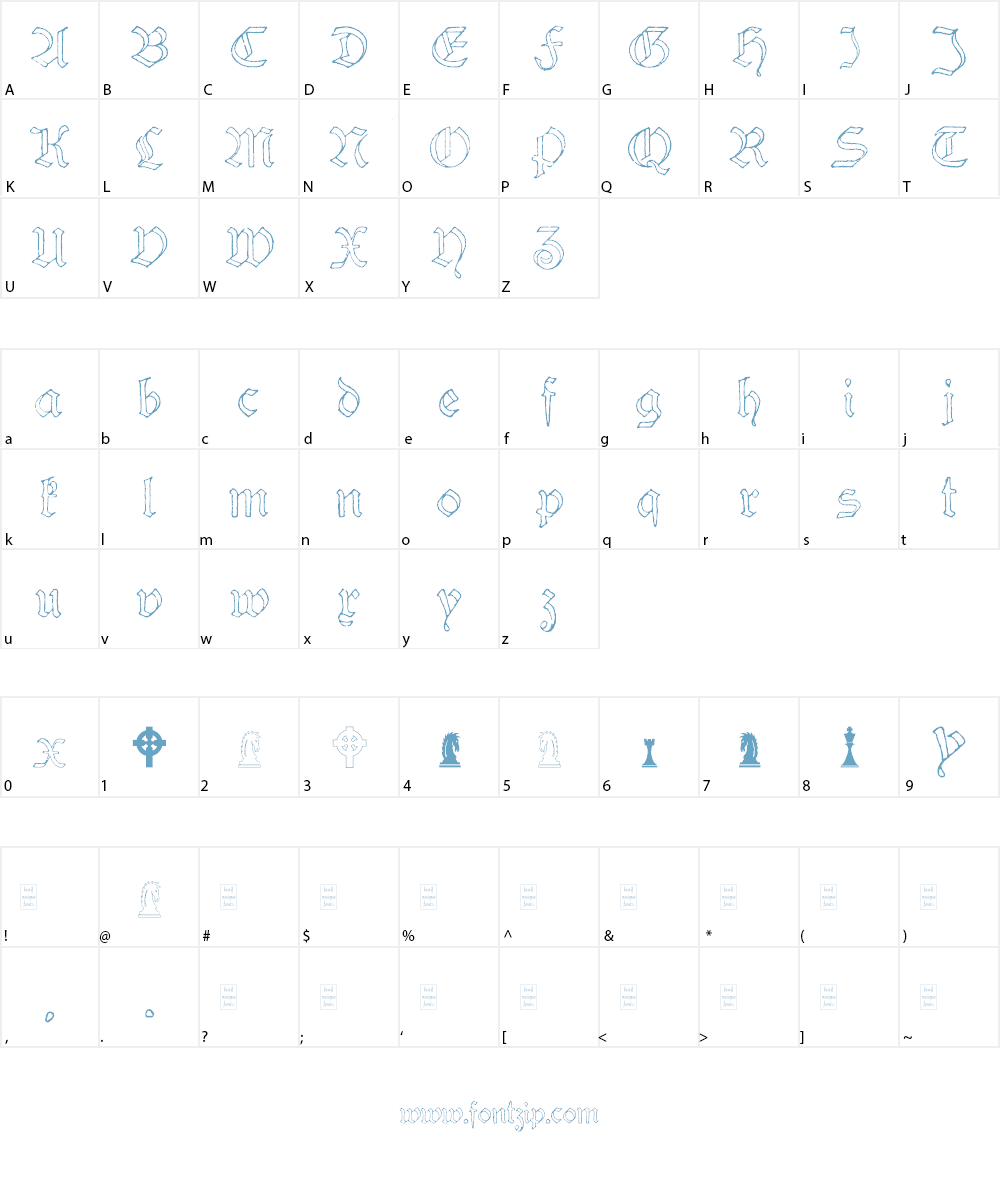
bu Gothic Hybrid Outline is a combination of a gothic old English text with a 17th century German calligraphy and various Euopean styles all rolled into one. I have added a varient upper case 'Y' and varient lower case 'x' for those who would want a less traditional look. The Y is found on the number 9 key and lower case x is on the Zero key. I didn't like the looks of the numbers on the solid Gothic Hybrid font so I used the number keys for chess pieces, celtic crosses, and the varient characters.